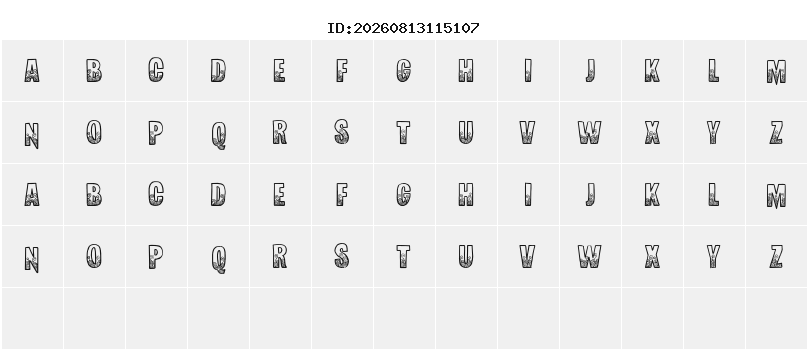
Red Snapper Preview
• Font Name: Red Snapper
• Full Font Name: RedSnapper-Regular
• PostScript Name: RedSnapper-Regular
• Character Count: 58
• Designer: =^_^=
• Manufacturer: Skyhaven
About Red Snapper.otf
Red Snapper.otf is a modern, elegant sans-serif font designed for ultimate readability and visual harmony. Perfect for branding, headlines, web design, and print materials.